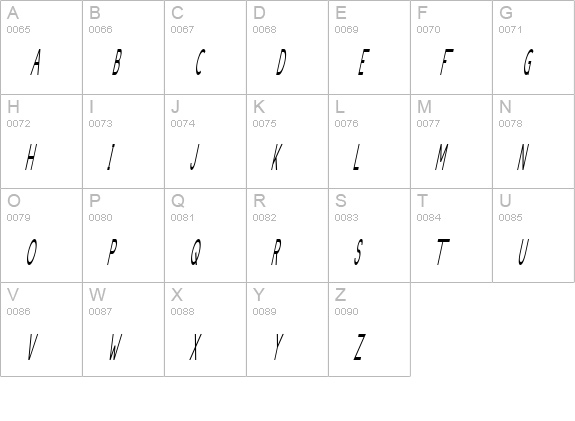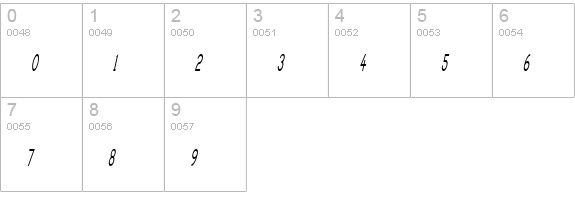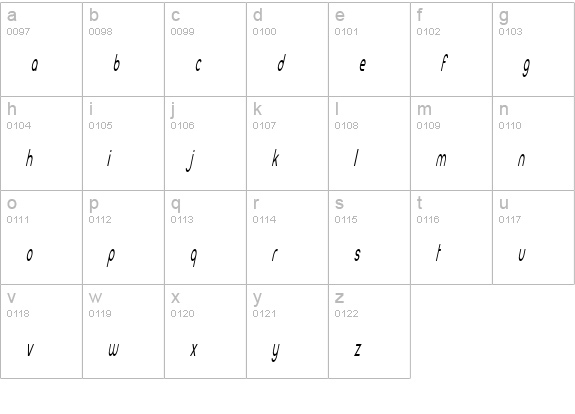
Slight Changes Font Details
Slight Changes font is a beautifully crafted typeface that strikes the perfect balance between elegance and modernity. With its subtle nuances and delicate curves, this font exudes a sense of sophistication that is sure to elevate any design project. Whether you're creating a stylish logo, elegant wedding invitation, or eye-catching poster, Slight Changes font will add a touch of refinement to your work. The best part? Slight Changes font is completely free to download at FontsMarket.com. Yes, you read that right - you can enhance your designs with this exquisite font without spending a penny. Take advantage of this fantastic offer and give your projects a fresh, stylish look with Slight Changes font. Download it now and let your creativity shine!